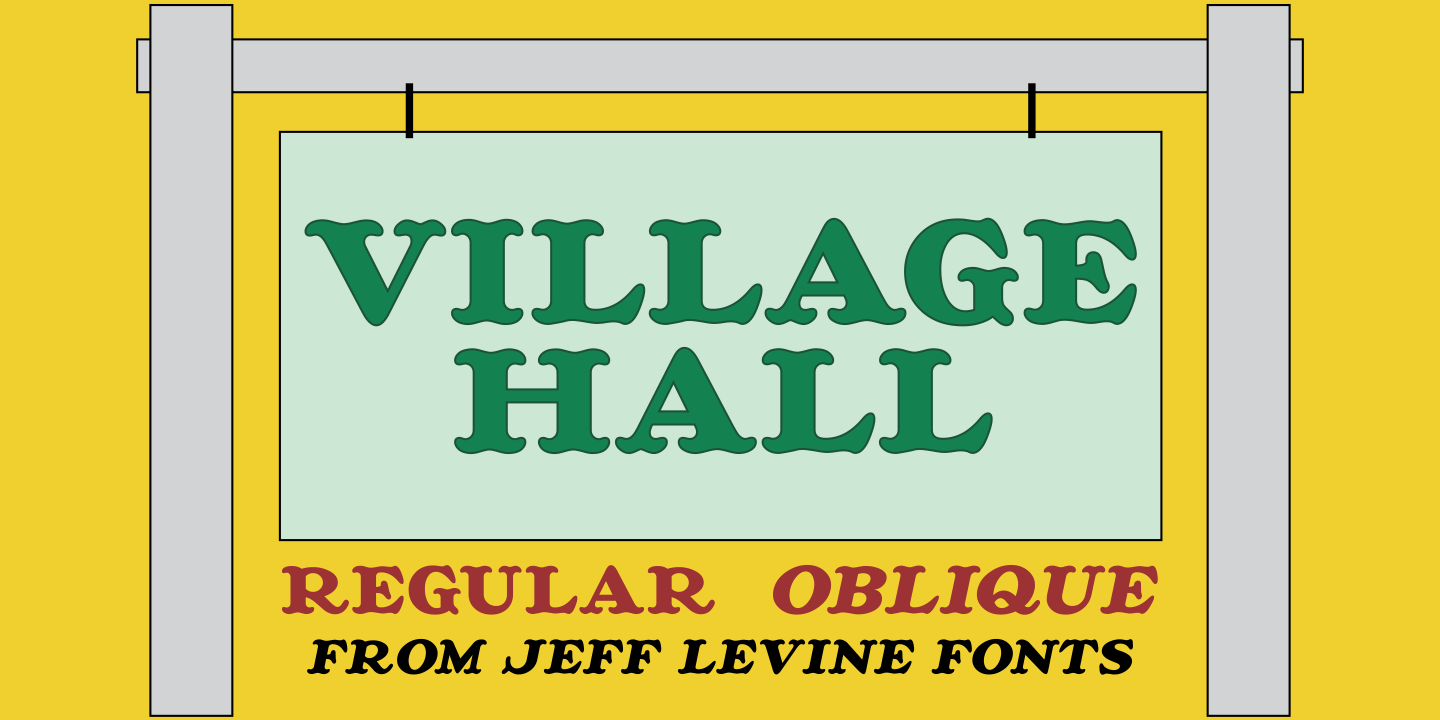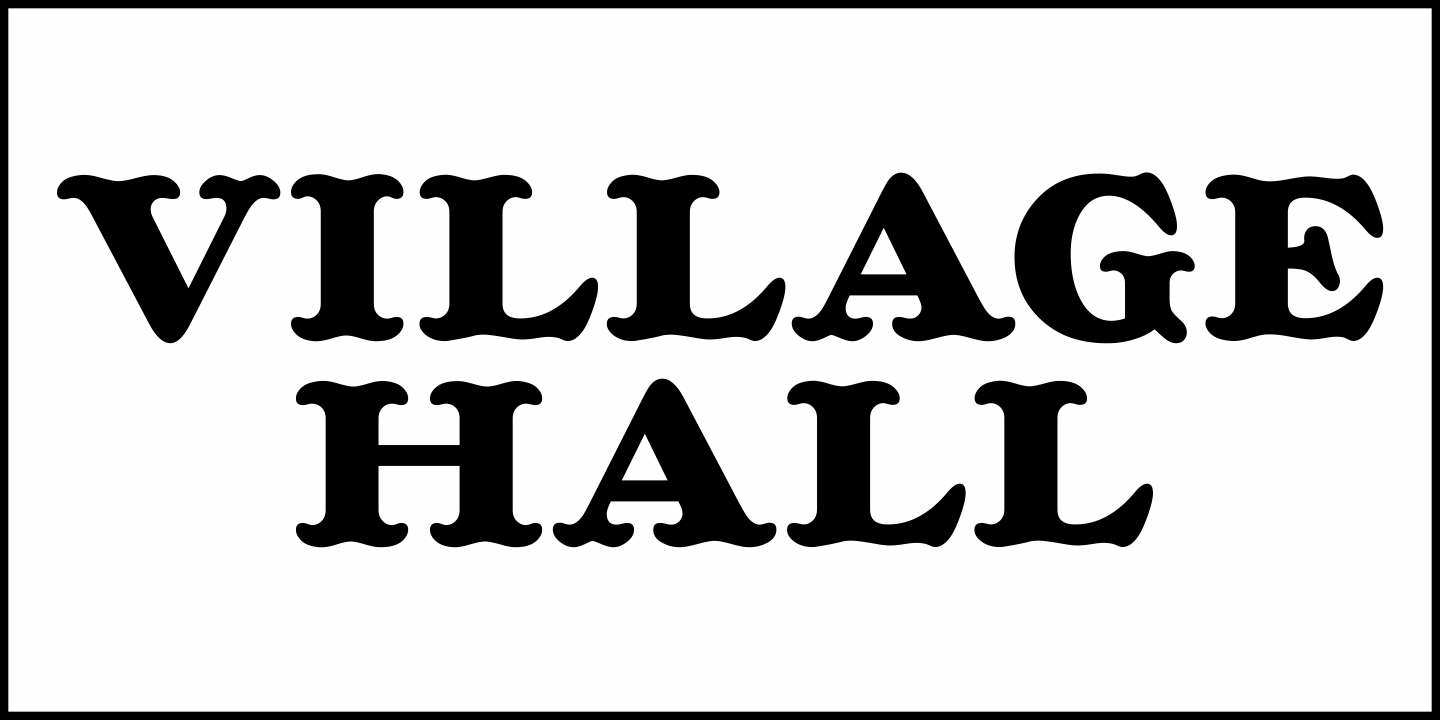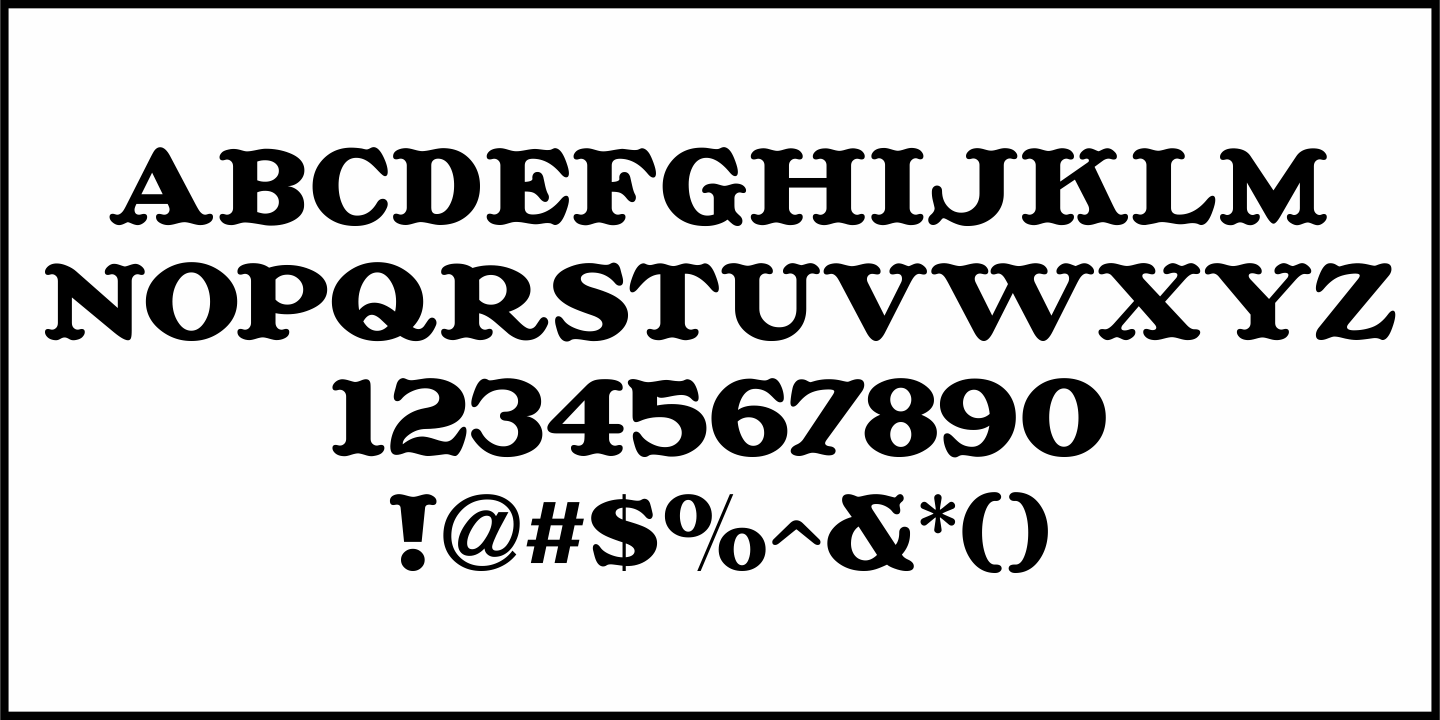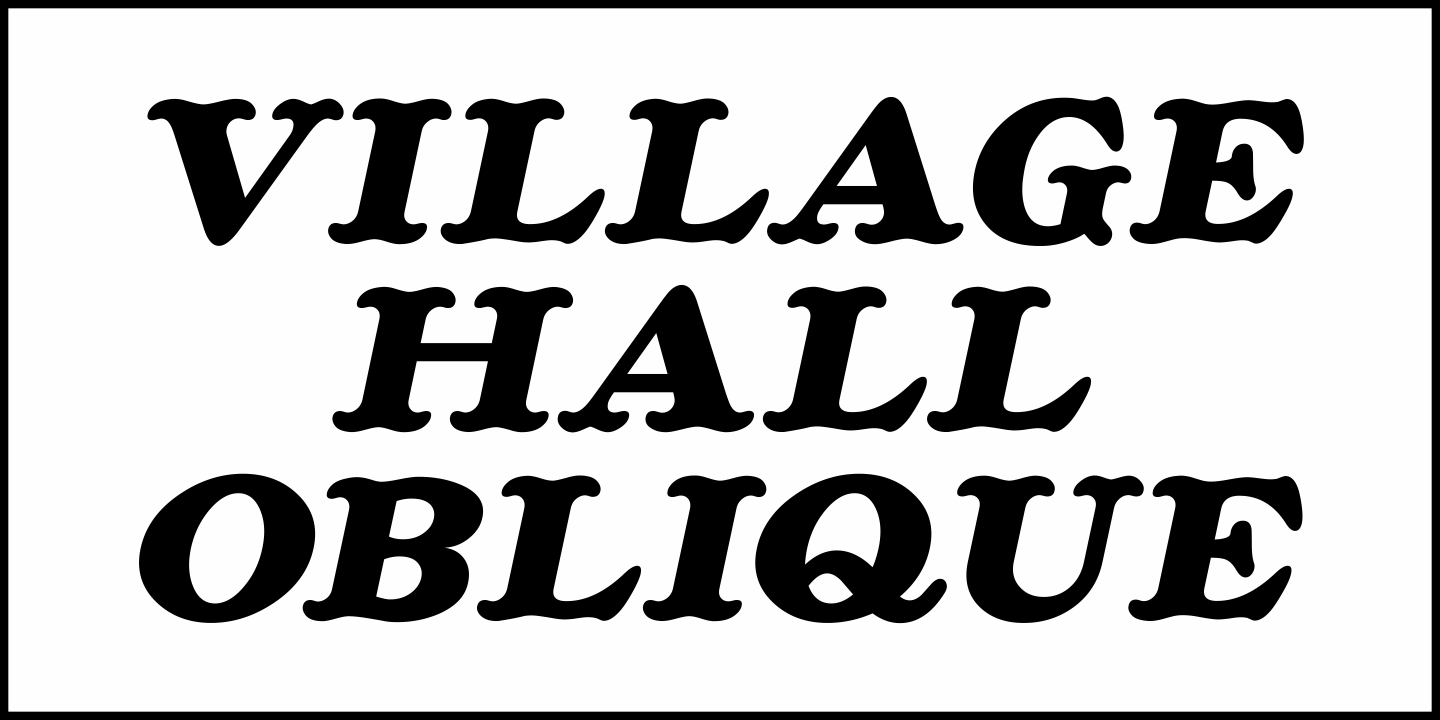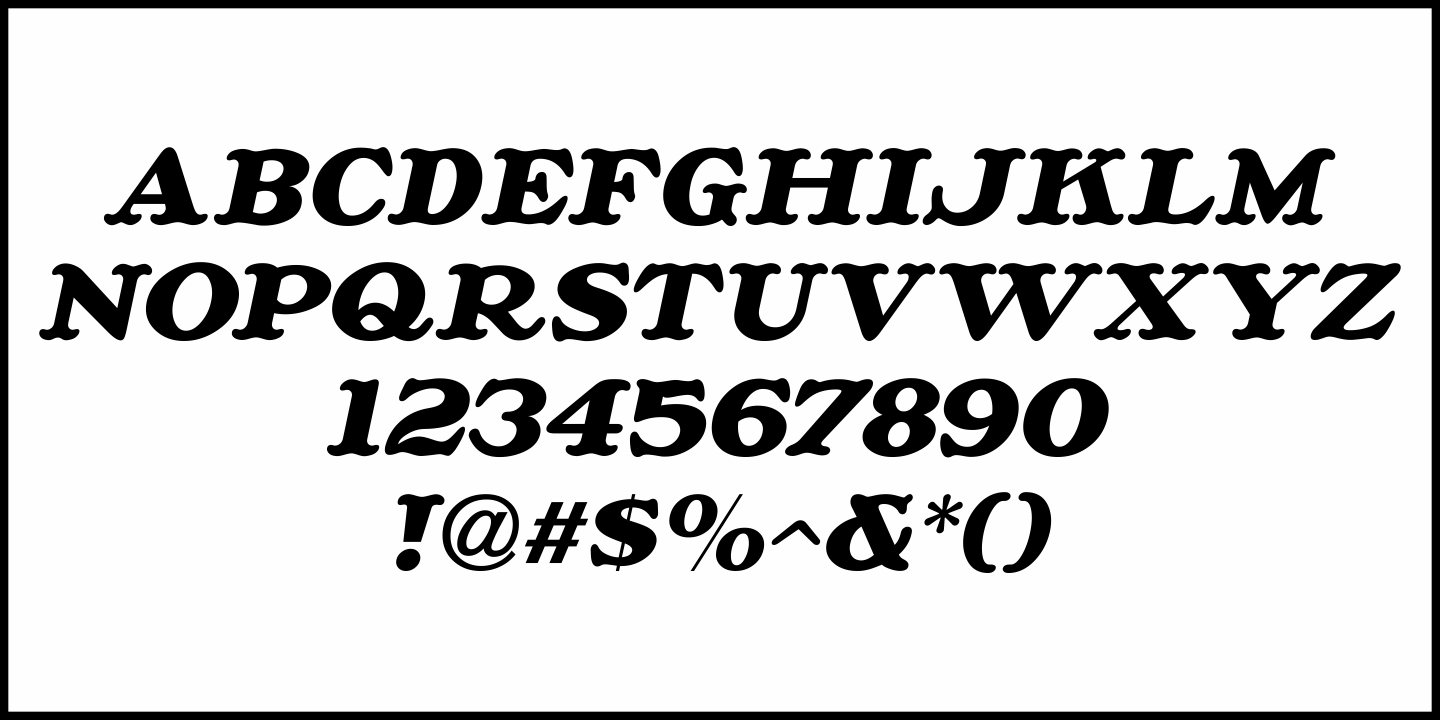
Village Hall
A 1918 poster issued during World War I from the YWCA encouraged women to pitch in to the war effort by joining the “United War Work Campaign”.
The Art Nouveau hand lettering of that poster was a slight throwback to the “Western” or “Victorian” style of typography because of the characters having split serifs.
This is now available as Village Hall JNL, in both regular and oblique versions
Village Hall JNL Regular by Jeff Levine Fonts